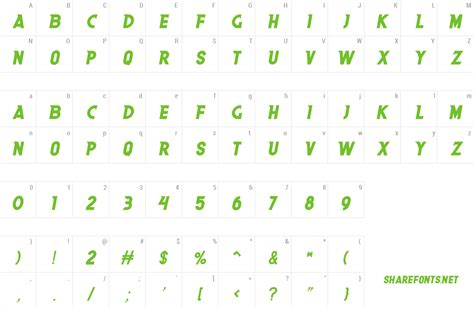
Imarshland Font: The Ultimate Guide For Designers
Imarshland Font: The Ultimate Guide for Designers
Hey guys! Are you looking to spice up your design projects? Let’s dive deep into the world of fonts, specifically the Imarshland font . This guide will walk you through everything you need to know, from its unique characteristics and best uses to where you can find it and how to make the most of it. So, buckle up and get ready to become an Imarshland font pro!
What is Imarshland Font?
Imarshland font is more than just a typeface; it’s a statement. Characterized by its distinctive, often whimsical, and sometimes elegant design, it stands out in a sea of generic fonts. The Imarshland font family often includes various weights and styles, providing designers with versatility for different projects. What sets it apart is its ability to evoke specific emotions and aesthetics, making it a favorite for branding, headlines, and creative projects.
When you think about Imarshland font , imagine a typeface that grabs attention. It’s not your run-of-the-mill Arial or Times New Roman; it has personality! This font often features unique curves, serifs, or sans-serif designs that make it memorable. Whether it’s used in a logo, a poster, or even a website header, Imarshland adds a touch of flair that can elevate the overall design. Designers love it because it allows them to express creativity and originality. The Imarshland family can range from bold and playful to elegant and sophisticated, offering a wide array of options for different design needs. For instance, some variations might include swashes or ligatures that add an extra layer of uniqueness. Ultimately, Imarshland is about making a visual impact and leaving a lasting impression. Its versatility ensures that it can be adapted to various contexts, making it a valuable asset in any designer’s toolkit.
Key Characteristics of Imarshland Font
To truly appreciate Imarshland font , understanding its key characteristics is essential. This font often boasts unique letterforms, distinct serifs or sans-serif styles, and a specific weight distribution that sets it apart. It may include stylistic alternates, ligatures, and swashes, enhancing its aesthetic appeal. Furthermore, its legibility and readability in various sizes and contexts play a crucial role in its effectiveness.
One of the defining features of Imarshland font is its letterforms. These aren’t your standard A, B, Cs; they often come with unique curves, angles, and details that make them instantly recognizable. For example, the uppercase letters might have elaborate swirls or the lowercase letters might feature unexpected loops. These unique designs contribute to the font’s overall personality and visual impact. Another key characteristic is the serif or sans-serif style. Serifs are the small decorative strokes at the end of letterforms, and their presence or absence can drastically change the font’s appearance. Imarshland might come in both serif and sans-serif versions, each offering a different aesthetic. The weight distribution is also crucial. This refers to how thick or thin the strokes of the letters are. A well-balanced weight distribution ensures that the font is both visually appealing and easy to read. Stylistic alternates, ligatures, and swashes add even more flair. Stylistic alternates are different versions of the same letter, allowing designers to choose the one that best fits their design. Ligatures are connections between two or more letters, creating a seamless and elegant look. Swashes are decorative extensions of letters, adding a touch of sophistication. Finally, legibility and readability are paramount. A beautiful font is useless if it’s hard to read. Imarshland is designed to be legible in various sizes and contexts, ensuring that your message is always clear.
Best Uses for Imarshland Font
Knowing where Imarshland font shines is crucial for effective design. This font is particularly well-suited for branding and logo design, where its unique characteristics can help create a memorable visual identity. It’s also excellent for headlines and titles, grabbing attention and setting the tone. In the realm of print design, Imarshland can elevate posters, flyers, and book covers. Digital applications include website headers, social media graphics, and even app interfaces.
For branding and logo design , Imarshland offers a distinctive touch that can help a brand stand out from the competition. Its unique letterforms and stylistic elements can create a visual identity that is both memorable and impactful. Think about a high-end fashion brand using a sophisticated Imarshland font in its logo, instantly conveying elegance and exclusivity. For headlines and titles , Imarshland is a game-changer. It’s designed to grab attention and set the tone for the content that follows. Imagine a blog post about travel using a playful Imarshland font in the header, immediately making the reader curious and excited. In print design , Imarshland can elevate the look and feel of posters, flyers, and book covers. A beautifully designed book cover with an Imarshland font can entice readers to pick it up and explore further. In digital applications , Imarshland can enhance the user experience on websites, social media, and apps. A website header with an Imarshland font can create a strong first impression, while social media graphics with this font can stand out in a crowded feed. Overall, Imarshland is best used in scenarios where you want to make a statement and leave a lasting impression. Its versatility allows it to be adapted to various contexts, making it a valuable asset in any design project. Whether you’re creating a brand identity, designing a poster, or building a website, Imarshland can help you achieve your goals and create visually stunning results.
Where to Find and Download Imarshland Font
Finding and downloading Imarshland font is easier than you might think. Start by exploring reputable font foundries and online marketplaces like MyFonts, Adobe Fonts, and Creative Market. Many of these platforms offer previews and licensing options, ensuring you can use the font legally and appropriately. Free font websites may offer Imarshland, but always verify the license to avoid copyright issues.
When you’re on the hunt for Imarshland font , the first place to check is reputable font foundries. These are companies that specialize in creating and selling fonts, and they often have a wide selection of high-quality typefaces. Some popular foundries include Monotype, Linotype, and Emigre. They usually offer detailed information about the font, including its history, characteristics, and licensing options. Online marketplaces are another great resource. Websites like MyFonts, Adobe Fonts, and Creative Market aggregate fonts from various foundries and independent designers, making it easy to browse and compare different options. These platforms typically offer previews of the font, allowing you to see how it looks in different sizes and contexts. They also provide clear licensing information, ensuring that you can use the font legally and appropriately. Many of these platforms offer subscription services that give you access to a wide range of fonts for a monthly or annual fee. If you’re on a budget, you might be tempted to download Imarshland from free font websites. However, it’s crucial to exercise caution when using these sites. While they may offer some legitimate free fonts, they often host fonts that are pirated or of poor quality. Always verify the license before downloading a font from a free website to avoid copyright issues. Look for a clear indication that the font is free for commercial use, and be wary of fonts that seem too good to be true. By following these tips, you can find and download Imarshland font safely and legally, ensuring that you have the right tools for your design projects.
Tips for Using Imarshland Font Effectively
To maximize the impact of Imarshland font , consider these tips. Pair it strategically with complementary fonts to create visual harmony. Pay attention to font sizes and spacing to ensure readability. Use color effectively to enhance the font’s personality. Be consistent in your application of the font across different design elements. Test the font in various contexts to ensure it works as intended.
Pairing Imarshland font with the right complementary fonts is crucial for creating visual harmony. Think of it like pairing wine with food; you want to choose a font that enhances the overall design without overpowering it. A good rule of thumb is to pair Imarshland with a simpler, more neutral font. For example, if Imarshland is a decorative serif font, consider pairing it with a clean sans-serif font like Open Sans or Lato. This creates a balanced look that is both visually appealing and easy to read. Pay attention to font sizes and spacing to ensure readability. The size of the font should be appropriate for the context in which it’s being used. Headlines and titles can be larger and more attention-grabbing, while body text should be smaller and more legible. Spacing, both between letters and between lines, is also important. Too little spacing can make the text look crowded and difficult to read, while too much spacing can make it look disjointed. Use color effectively to enhance the font’s personality. Color can be a powerful tool for conveying emotion and creating visual interest. Choose colors that complement the font’s style and the overall design. For example, a bold and playful Imarshland font might look great in bright, vibrant colors, while an elegant and sophisticated font might look better in muted, pastel shades. Be consistent in your application of the font across different design elements. Consistency is key to creating a cohesive and professional-looking design. Use the same font for headlines, body text, and other design elements to create a unified look. If you’re using multiple fonts, make sure they complement each other and are used consistently throughout the design. Finally, test the font in various contexts to ensure it works as intended. What looks good on your computer screen might not look as good on a printed poster or a mobile device. Always test the font in different sizes, colors, and contexts to make sure it’s legible and visually appealing. By following these tips, you can use Imarshland font effectively and create stunning designs that stand out from the crowd.
Imarshland font is a powerful tool for designers looking to make a statement. By understanding its characteristics, best uses, and how to use it effectively, you can elevate your design projects and create visually stunning results. So go ahead, explore the world of Imarshland, and let your creativity shine!